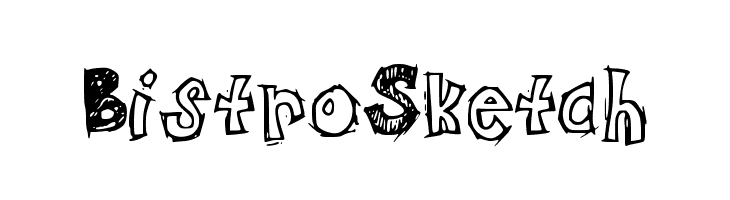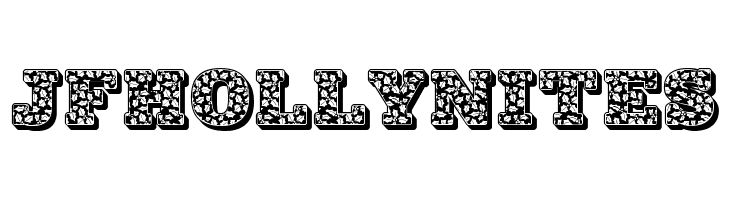
A sleek, modern italic font with smooth curves and clean lines.
A bold, textured serif font with a vintage, distressed look.
A bold, gradient-effect font with a three-dimensional appearance.
A bold, italic font with a modern and professional look.
A playful, decorative font with bold, rounded letters and integrated strawberry motifs.
A playful, bold font with hand-drawn characters enclosed in black ovals.
A playful handwritten font with a casual and friendly style.
A charming and elegant handwritten script with fluid, flowing letters.
A decorative font with holly leaf embellishments on uppercase letters.
A bold, angular font with sharp, peak-like cut-out details.
A sleek, italicized font with a modern and sophisticated style.
A bold, geometric font with a modern and angular design.
A dynamic, brush-style font with expressive strokes and a handcrafted feel.
A bold, blocky font perfect for impactful headlines.
A clean, geometric font with consistent stroke widths and a modern aesthetic.
A bold, handwritten font with a casual and friendly vibe.
A playful, bold, and handwritten-style font with a casual and friendly appearance.
A bold, italicized font with a gradient effect and futuristic style.
A bold, italicized handwritten font with a playful and casual style.
A bold, modern font with strong lines and clear readability.
Playful and bold handwritten font.
A flowing, cursive font with elegant, connected strokes.
A bold, expressive brush-style font with dynamic, hand-painted strokes.
A modern, dot-connected geometric font with a futuristic style.
A futuristic, geometric font with bold, angular letterforms.
A graceful and elegant script font with a handwritten style.
A lively, handwritten font with fluid, elegant strokes and a personal touch.
A bold, playful font with a vintage flair and wavy character design.
An elegant, cursive font with a calligraphic style and fluid character connections.
A bold, geometric outline font with a futuristic and digital style.
A bold, textured font with a hand-drawn, artistic style.
A sleek, modern italic font with a dynamic and streamlined appearance.
A playful, bold font with a melting, whimsical design.
A dynamic, italicized font with elegant, flowing characters and moderate contrast.
تحظى Amsterdam Signature Duo, Morrison Italic, BodoniFragileDirt, Jurij Gradient Regular and Gravity Bold Italic بشعبية لخطوطها النظيفة وتطبيقاتها الواسعة — من الهوية البصرية إلى الصفحات المقصودة والملصقات.